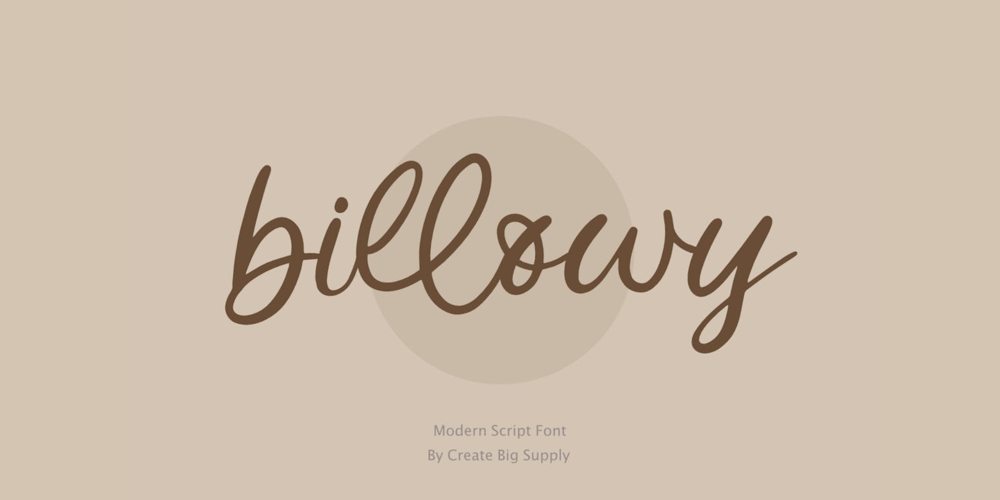
Billowy Font Family was designed by Irpan Maulana and published by Create Big Supply. Billowy contains 1 styles and family package options. Introducing Billowy, a captivating handwriting script font that brings an elegant and artistic touch to your creative endeavors. With its natural flow and versatility, this font is the perfect choice for various craft projects.Billowy’s unique handwriting script style adds a sense of authenticity and charm to your designs. Whether you’re working on shirt designs, websites, SVG creations, home decor, branding materials, blogs, logos, or invitations, this font will elevate your projects with its graceful appeal.With both uppercase and lowercase letters, Billowy offers flexibility in crafting captivating compositions. The font also includes numbers and punctuations, ensuring seamless integration within your text. Its multilingual support enables effective communication in different languages, broadening your reach to diverse audiences.Billowy features ligatures that enhance the smoothness and aesthetics of your typography, allowing for seamless and visually appealing designs. The font’s PUA Encoding provides easy access to special characters and glyphs, enabling you to unleash your creativity without limitations.Embrace the elegance of Billowy in your craft projects and witness the beauty it brings to your creations. From handmade crafts to digital designs, this font adds a touch of sophistication and style.